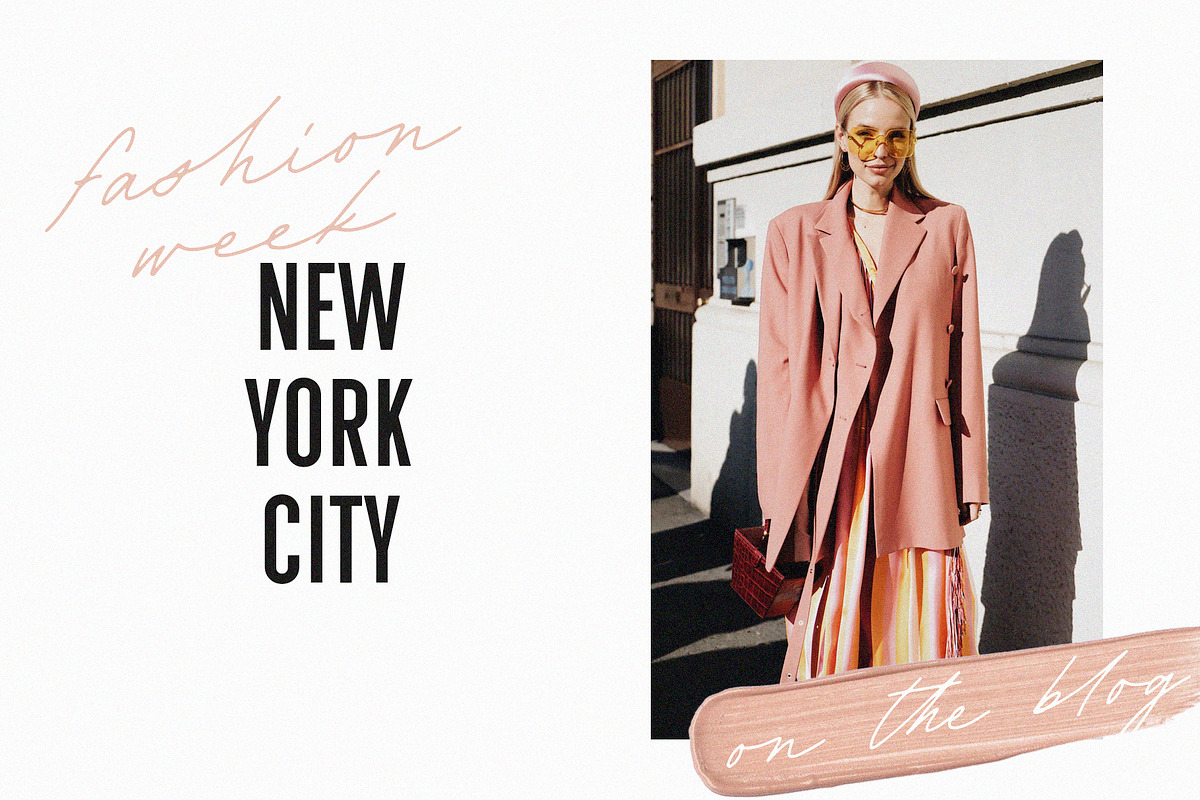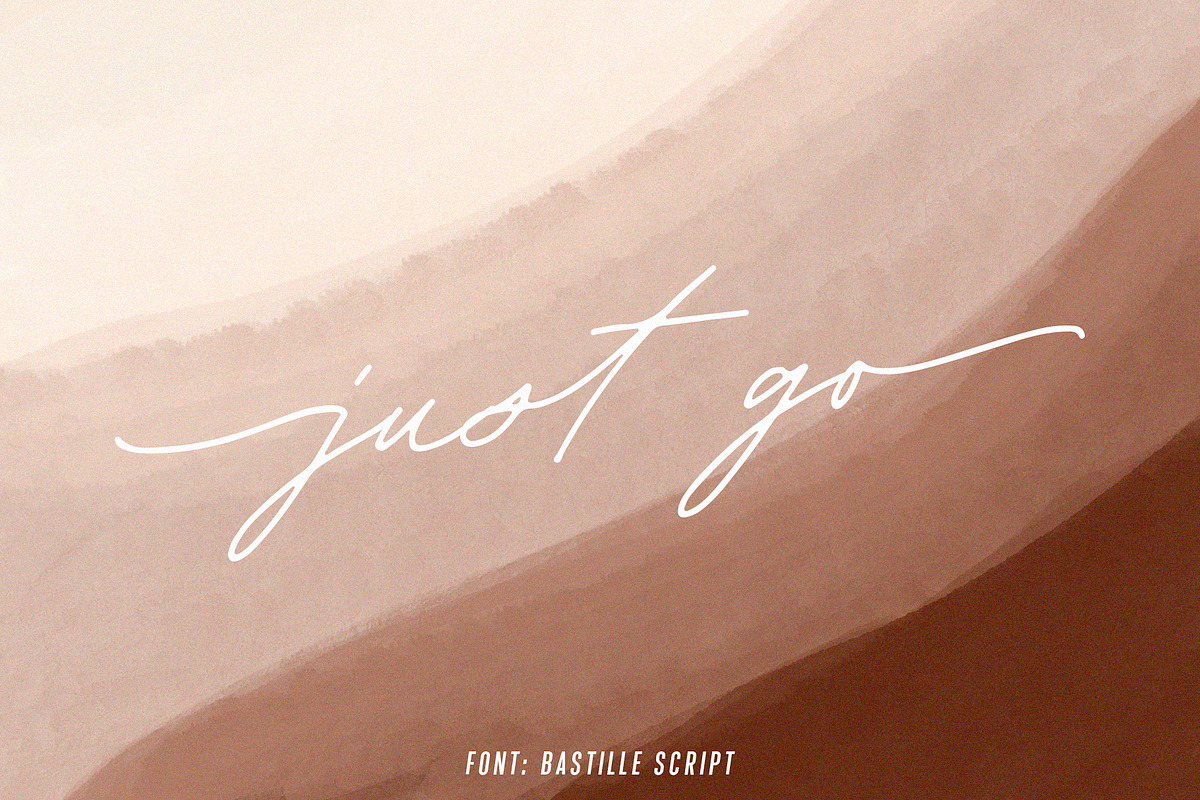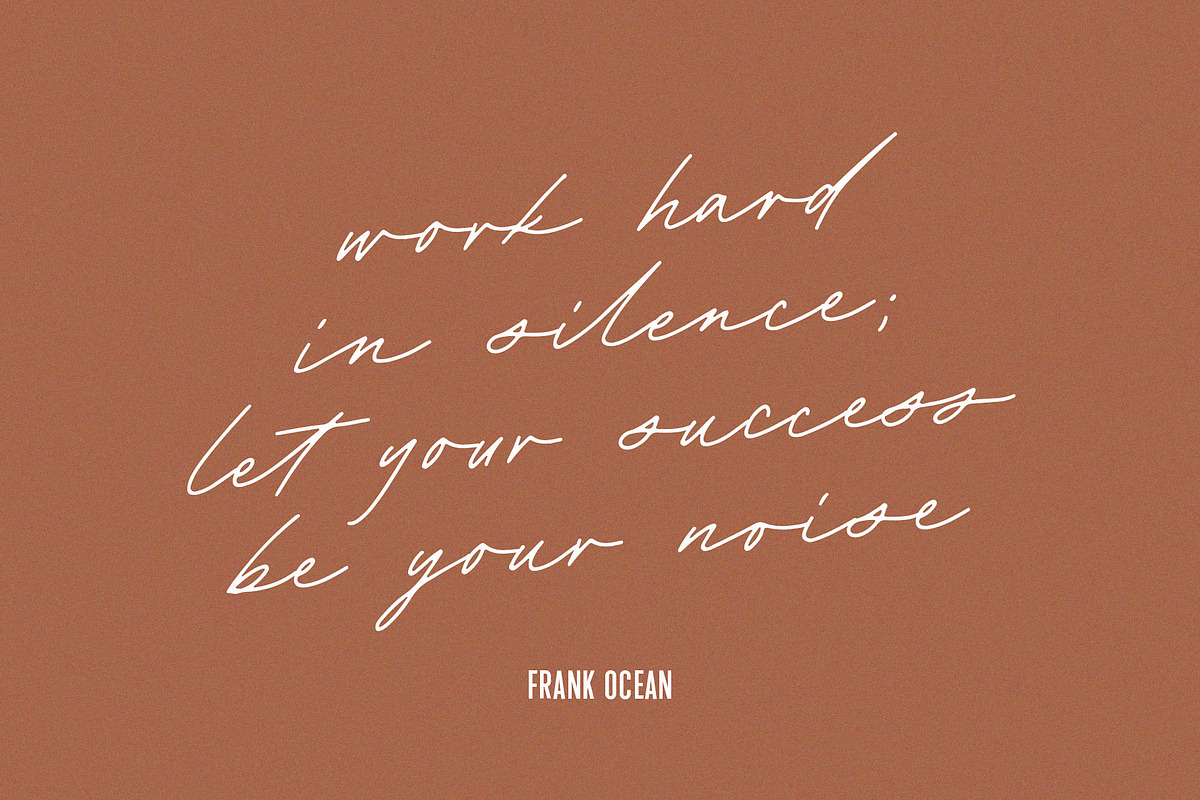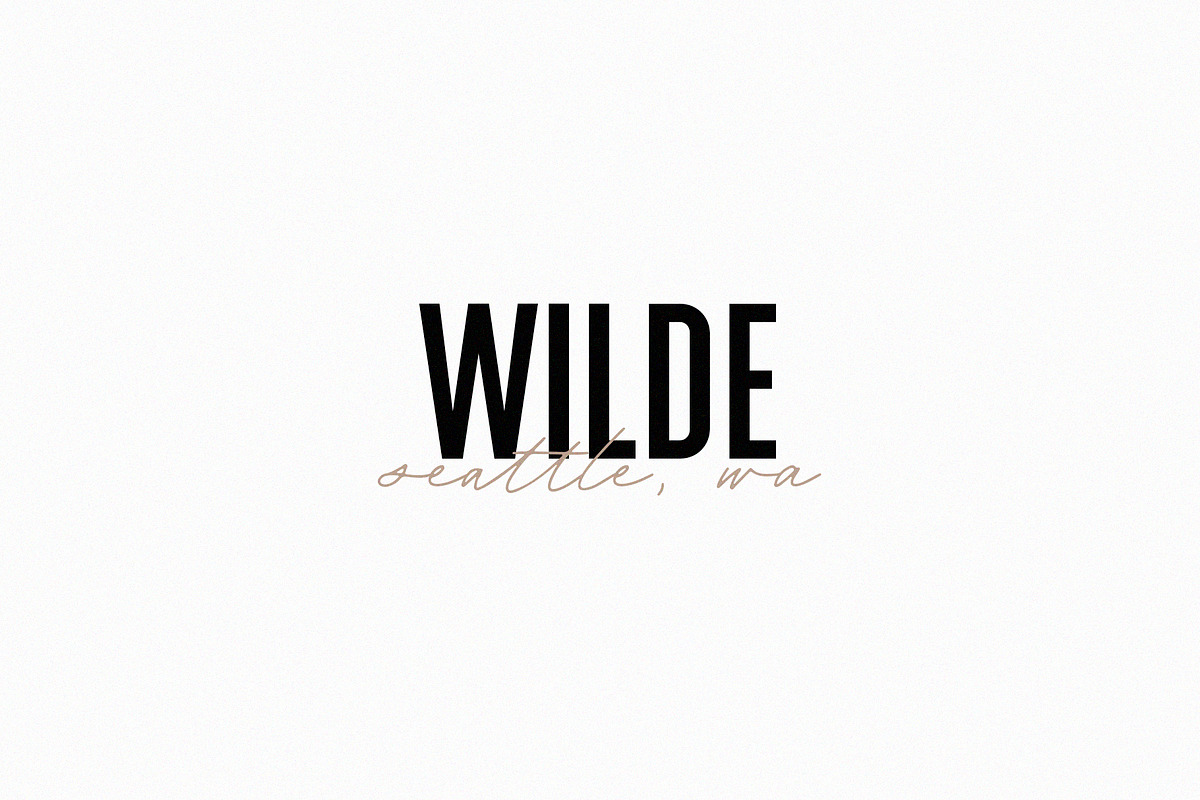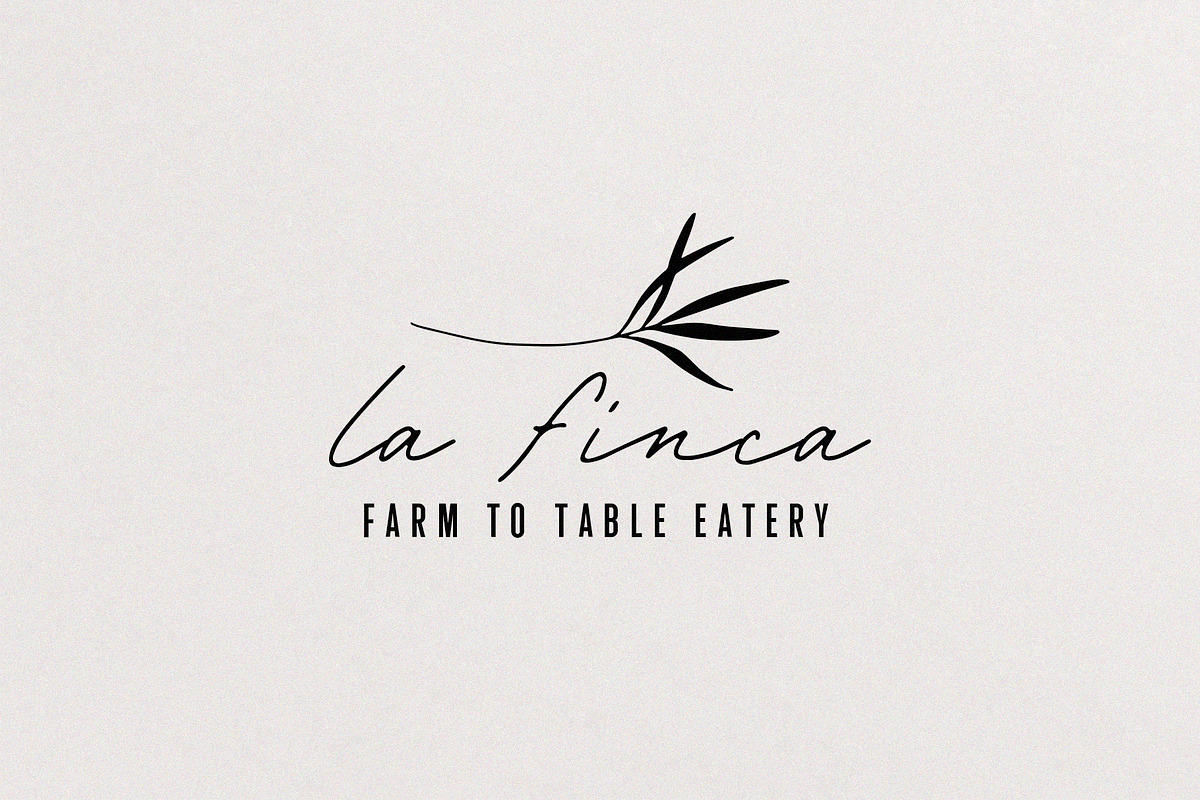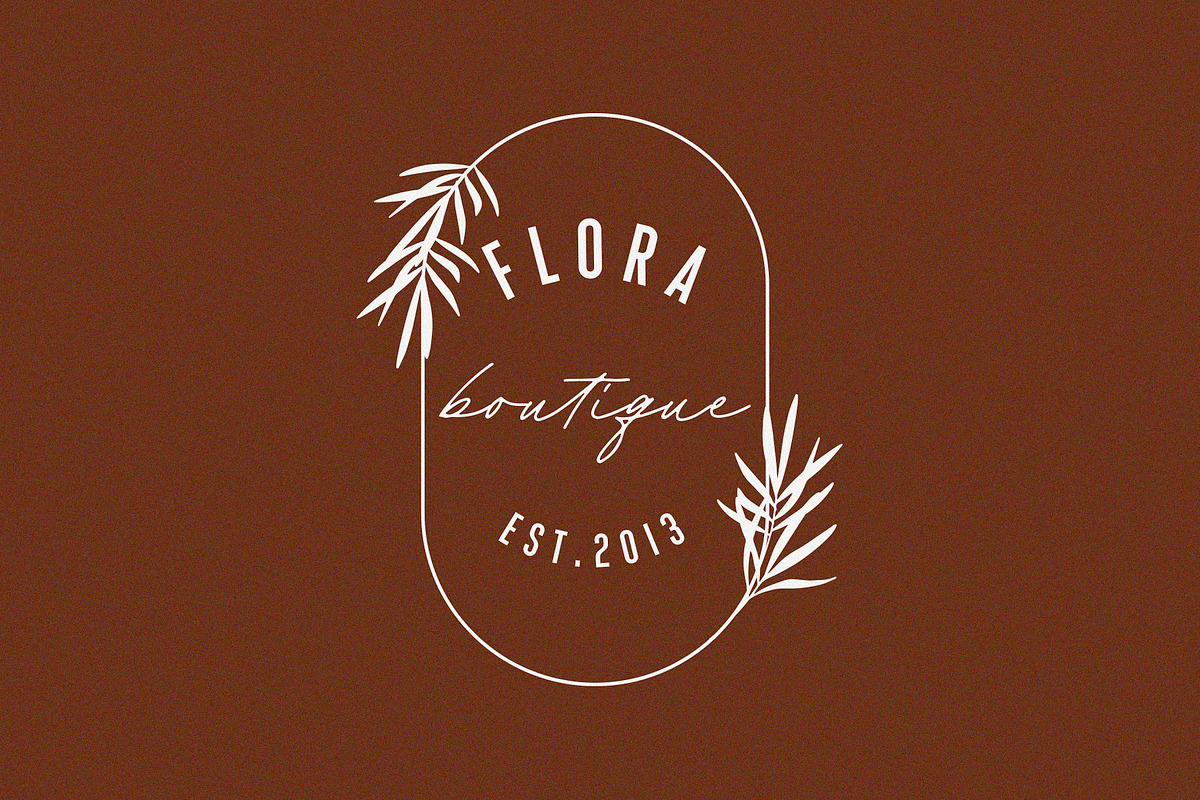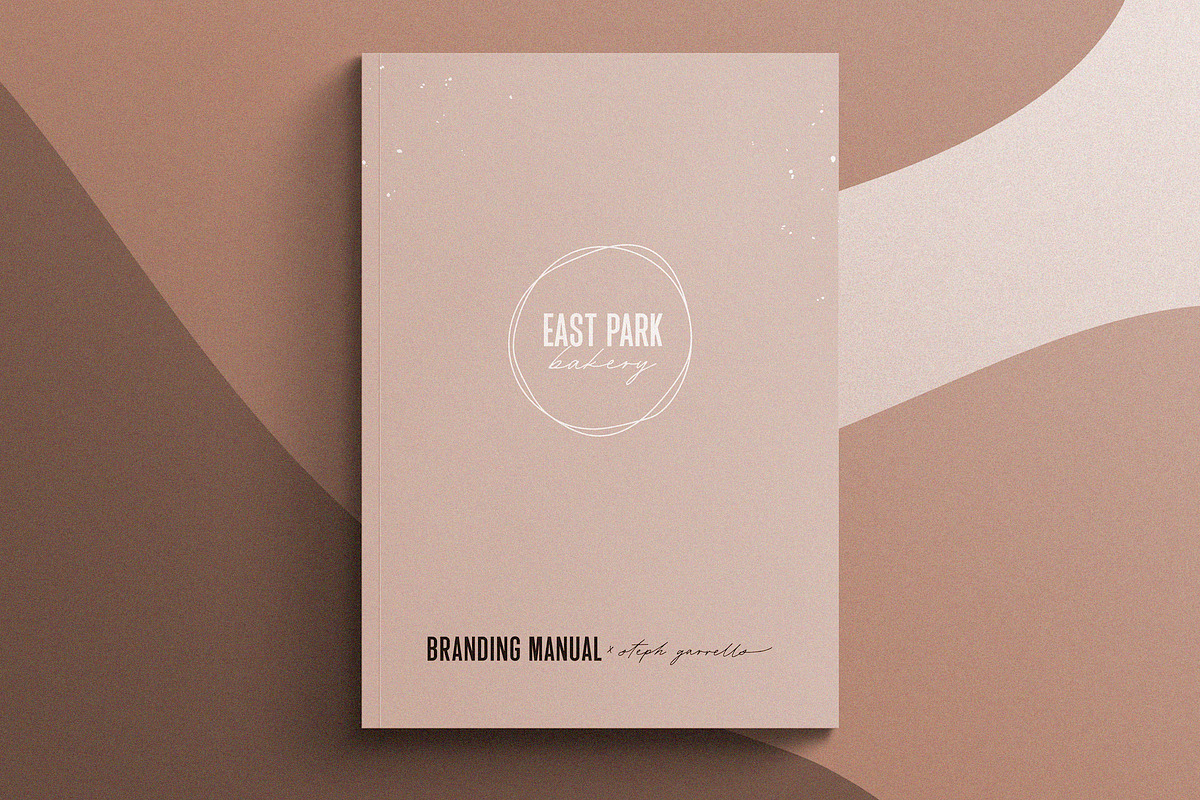
Bastille Modern Font Duo
Bastille is a stunning modern font duo that makes for gorgeous logos, posters, wedding invitations, blog posts, social media, and more!
I love using them layered on top of one another in Photoshop and Illustrator (you can layer in Pages too!). The sans looks stellar with tracking set to 110, as well as where it falls normally at 0!
You'll also get beginning and ending swashes for each lowercase letter to add extra flair to your focal words.
Bastille Sans Regular (all caps font)
Bastille Sans Italic (all caps font)
Upper + Lowercase Letters w/ alternates (Bastille Script)
Alternate numbers and 3 different ampersands (Bastille Script)
Numbers + Punctuation
- Bastille Script includes over 60 ligatures to make everything look totally hand-done, and alternates for each letter.